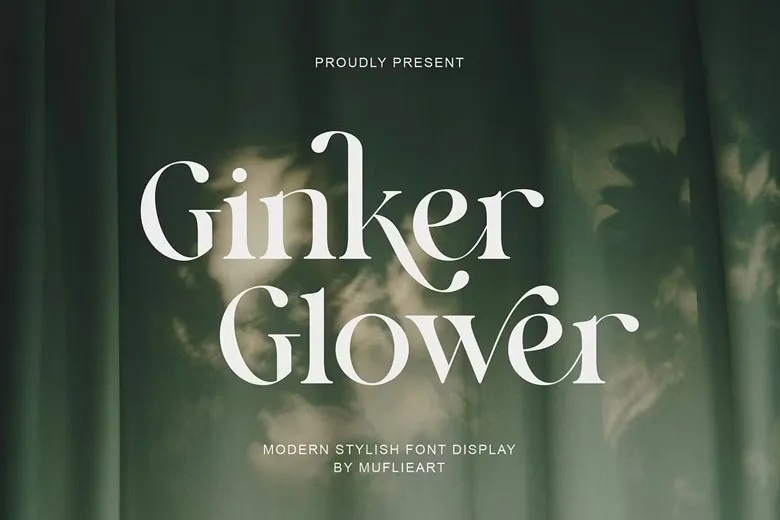
Ginker Glower Font
Ginker Glower is a fresh, clean modern serif font. Thanks to its clean cut design, Ginker Glower is ready to provide your projects like websites, modern logos, branding identities, social media quotes, wedding invitations, magazines and etc. a luxurious, classy and clean look.
Ginker Glower contains sophisticated serif capital letter A to Z, and also the variants as well as specific ligatures that allow turning Ginker Glower into an exquisite font for various purposes and projects you have in mind.
Ginker Glower Serif Font